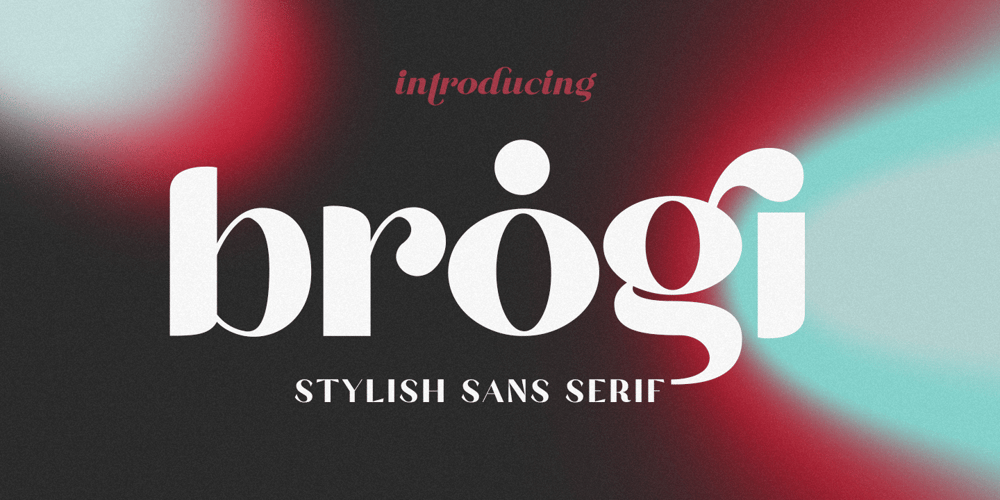
Brogi Font Family was designed by Wahyu Rahmawan and published by Factory738. Brogi contains 10 styles and family package options. Brogi is a stylish sans serif font designed specifically for logo and brand designs. Brogi exuded a sense of boldness and sophistication despite his menacing styles. Ligature fonts can be used for almost any purpose you can imagine. 10 Weights (Light, Regular, Medium, Bold and Black) 2 Styles (Regular & Italic) Basic Latin A-Z and a-z Numerals & Punctuation Stylistic Ligatures Multilingual Support for ä ö ü Ä Ö Ü … Free updates and feature additions Thanks for looking, and I hope you enjoy it.